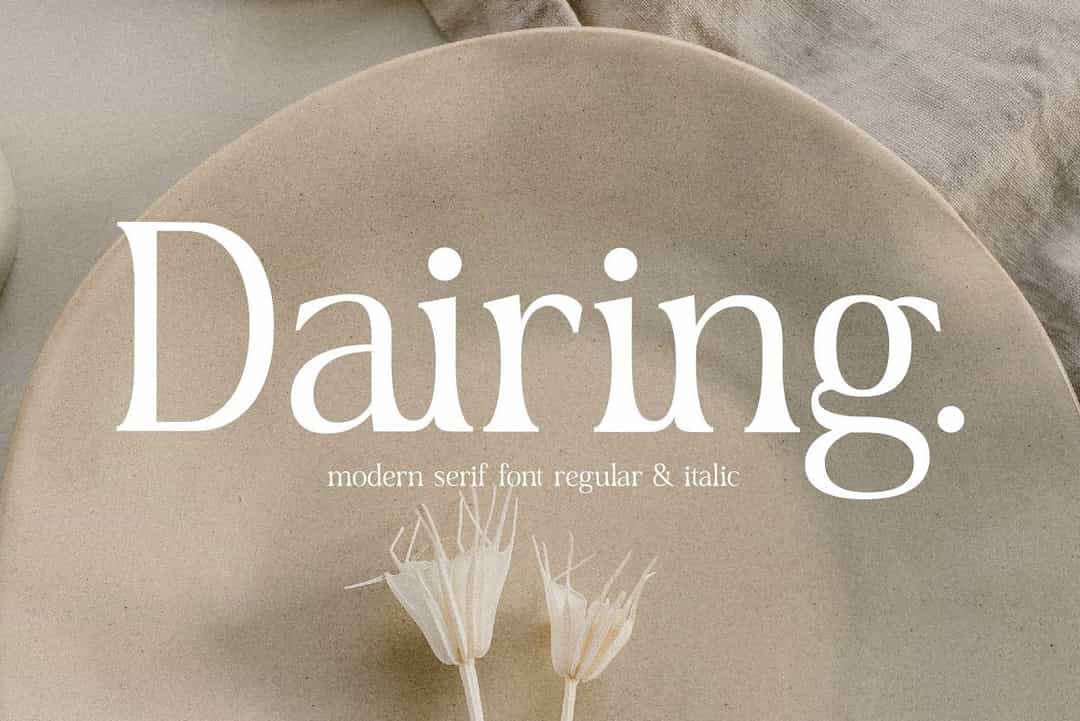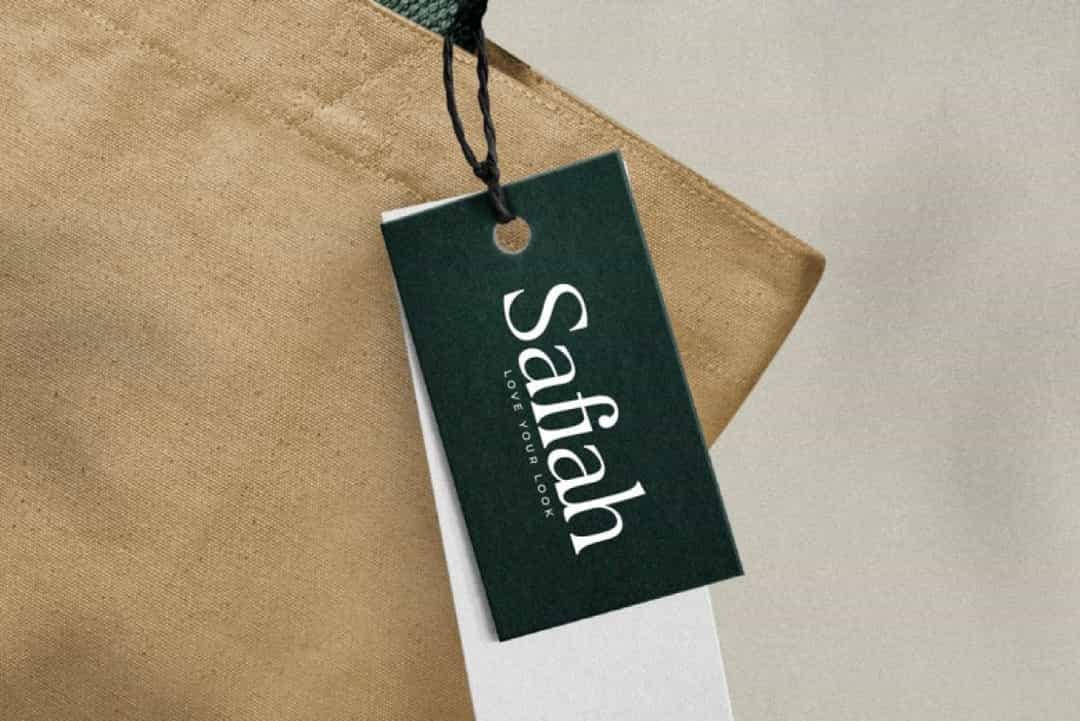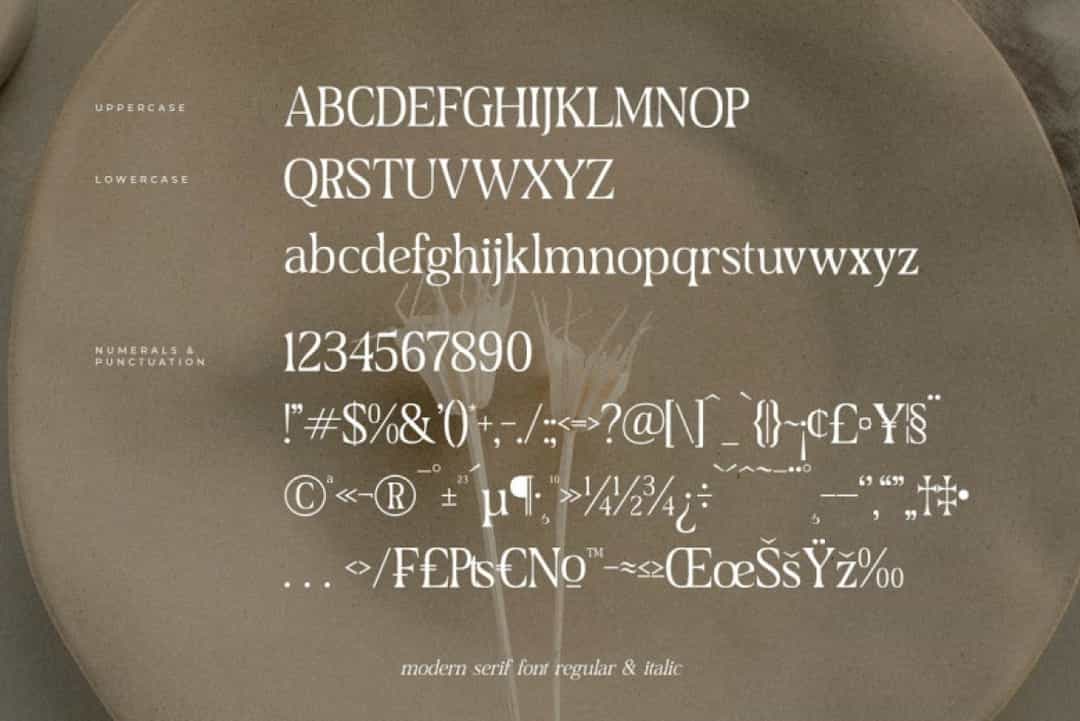
Dairing Font, designed by Storytype, is an eye-catching modern serif font with its own distinct style and modern appearance, perfect for creating sophisticated logos, movie or book name designs, fashion brand clothing designs, magazine letters and quotes – and much more!